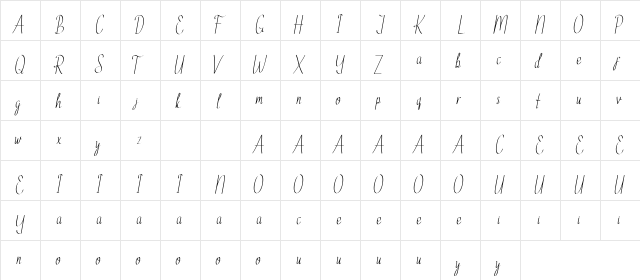
Ethelyne Demo Italic
Design Context for Ethelyne Demo Typeface
Ethelyne Demo is a composed and adaptable typeface that performs quietly and consistently across a wide range of design contexts. The slanted form adds forward momentum and visual energy.
Pro Tip: Try Ethelyne Demo for annotation and caption copy alongside an upright companion — the contrast in angle creates a dynamic but ordered typographic system.